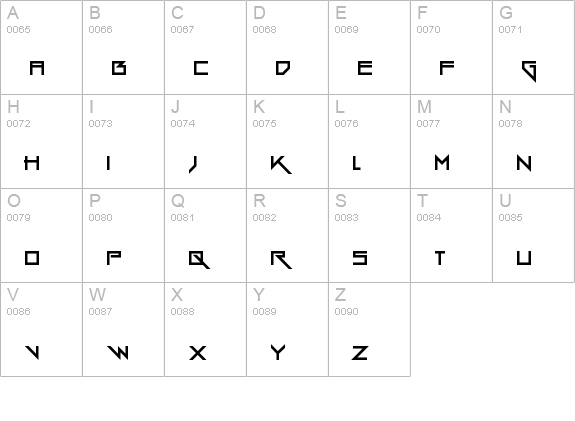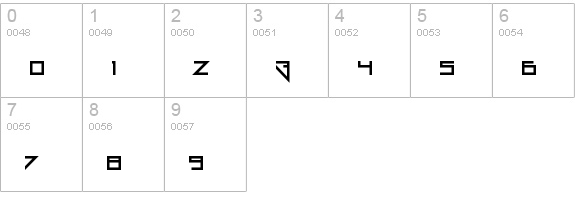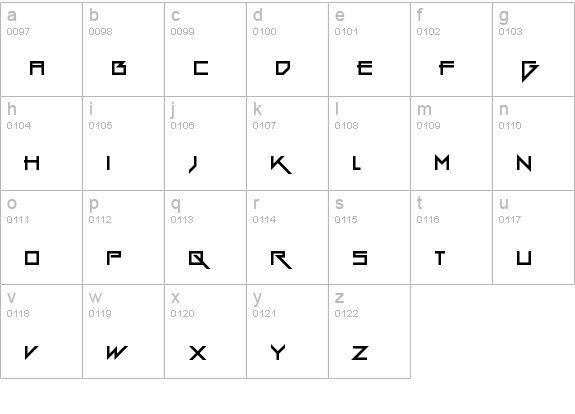
Gang Wolfik Regular is the standard, neutral variant in the Gang typeface family \xE2\x80\x94 well suited to general body text, paragraphs, and standard typographic work.
Gang Wolfik Regular font is a sleek and modern typeface that exudes confidence and style. With its sharp lines and bold presence, this font is perfect for making a statement in any design project. Whether you're creating a poster, logo, or website, Gang Wolfik Regular will surely catch the eye of your audience. The best part? Gang Wolfik Regular font is completely free to download at FontsMarket.com. You can easily add this versatile font to your collection without having to spend a dime. Don't miss out on the opportunity to enhance your designs with the striking aesthetics of Gang Wolfik Regular. Download it today and elevate your creative projects to the next level.